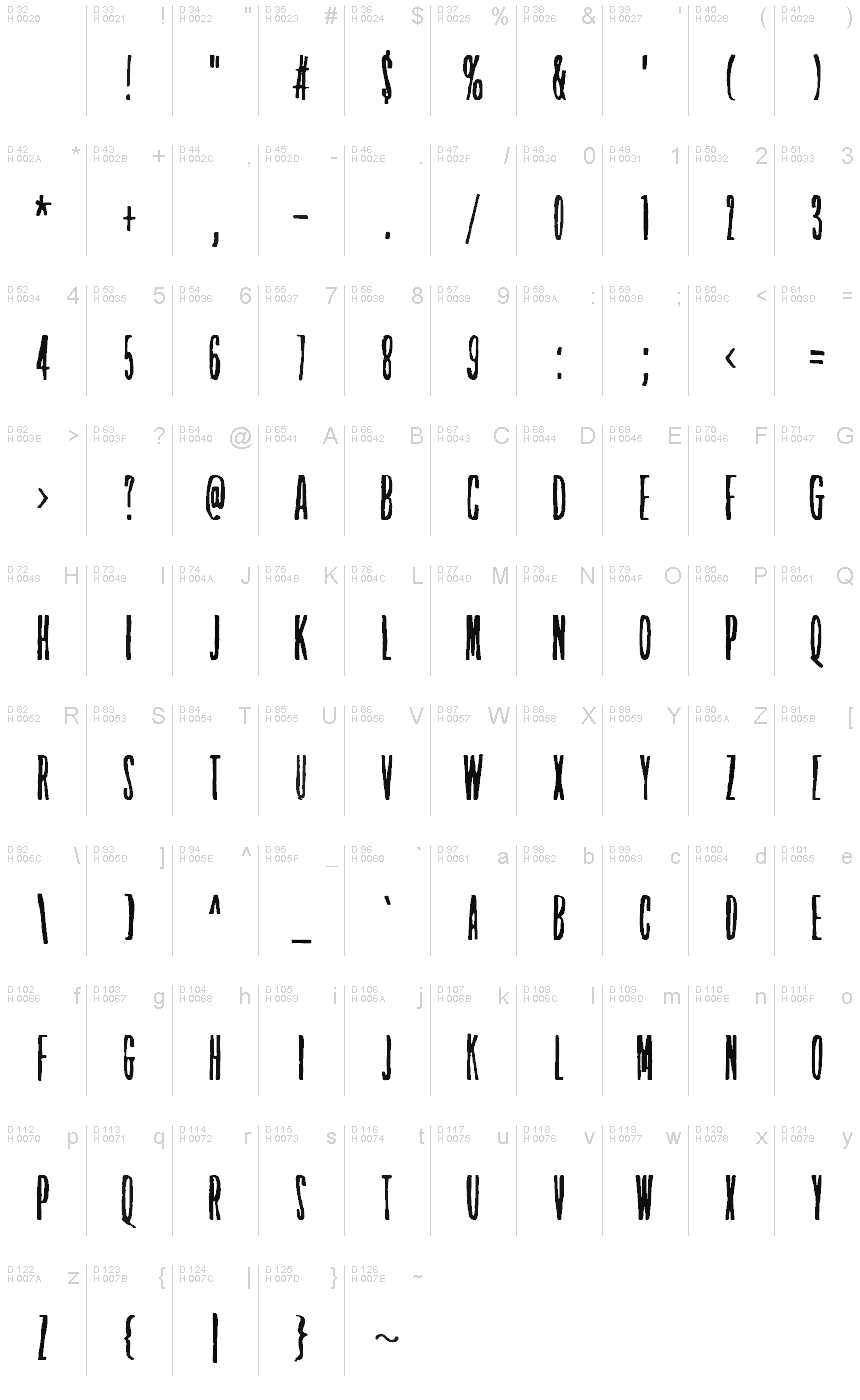
On the horizon
"On the Horizon" is a captivating display font designed by junkohanhero, featuring a striking eroded aesthetic and a condensed width. The rugged, weathered appearance of the letters evokes a sense of timelessness and raw, industrial charm. This font's bold, attention-grabbing personality makes it an excellent choice for headlines, posters, and branding materials that seek to convey a sense of adventure, exploration, or the great outdoors.
Its unique character and versatility allow it to seamlessly transition between modern and vintage-inspired design styles, making it a versatile tool in the creative arsenal.